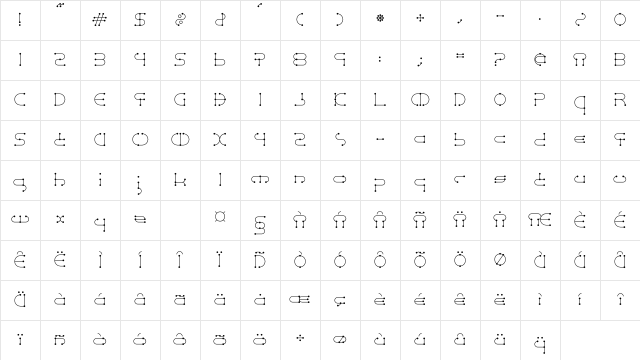
Piercing LT Std Regular
Designer: Michael Parson
Design Context for Piercing LT Std
Piercing LT Std is a composed and adaptable typeface that performs quietly and consistently across a wide range of design contexts. Its slender proportions lend an understated elegance to any composition.